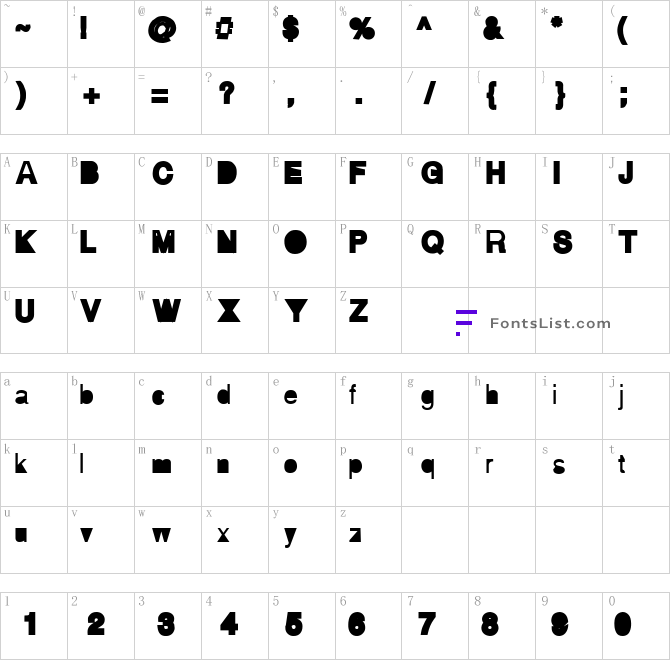
- Font Name:AI hellvertigo
AI-hellvertigo.ttf is a very beautiful artistic font, AI-hellvertigo.ttf is widely used in the design and printing of various books and pictures,AI-hellvertigo.ttf has a strong visual impact,AI-hellvertigo.ttf is a commonly used font in newspapers, magazines and books, and is used in posters, e-commerce Poster design, store design, logo design, font design and other fields.AI-hellvertigo.